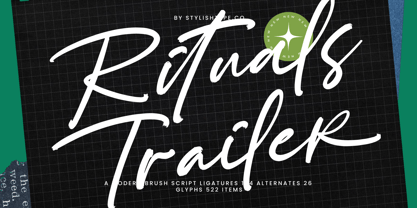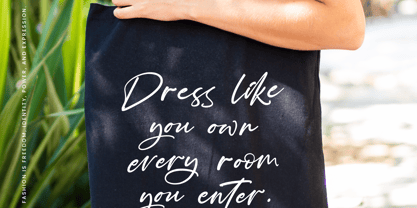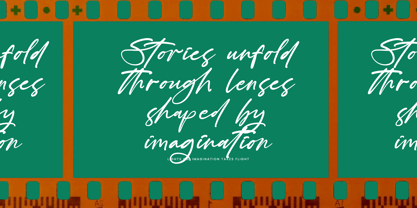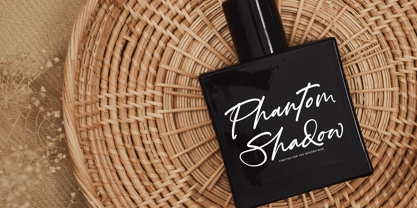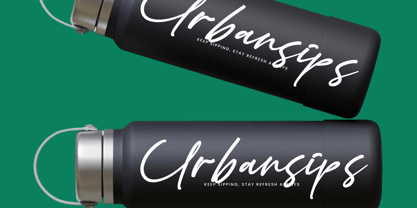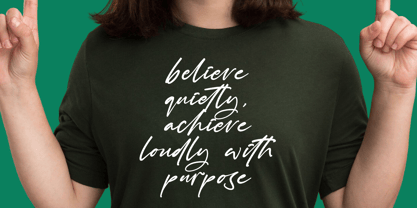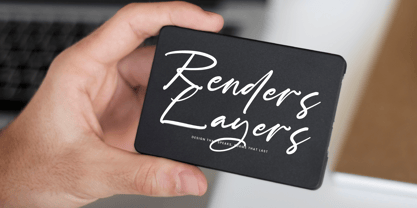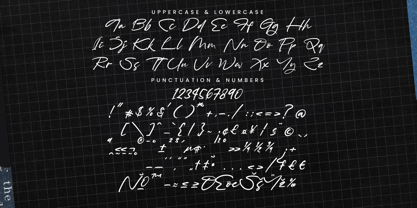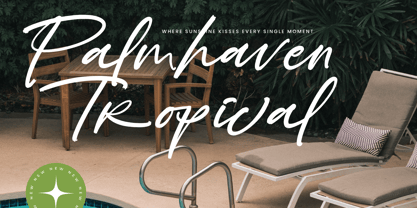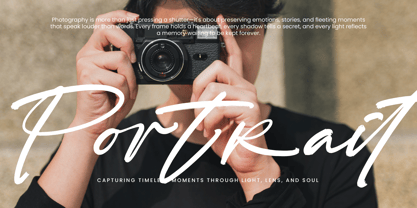
Rituals Trailer
by Stylishtype Studio
The Rituals Trailer Font Family was designed by Heru Utama Putra and published by Stylishtype Studio. Rituals Trailer contains 2 styles and family package options. More about this family
Rituals Trailer - Modern Brush Script , from Stylishtype , Suitable for any projects such as: logos, branding projects, homeware designs, product packaging, mugs, quotes, posters, shopping bags, t-shirts, book covers, name card, invitation cards, greeting cards, label, photography, watermark, special events, and all your other luxury and beautiful projects that need a Luxury Script taste.